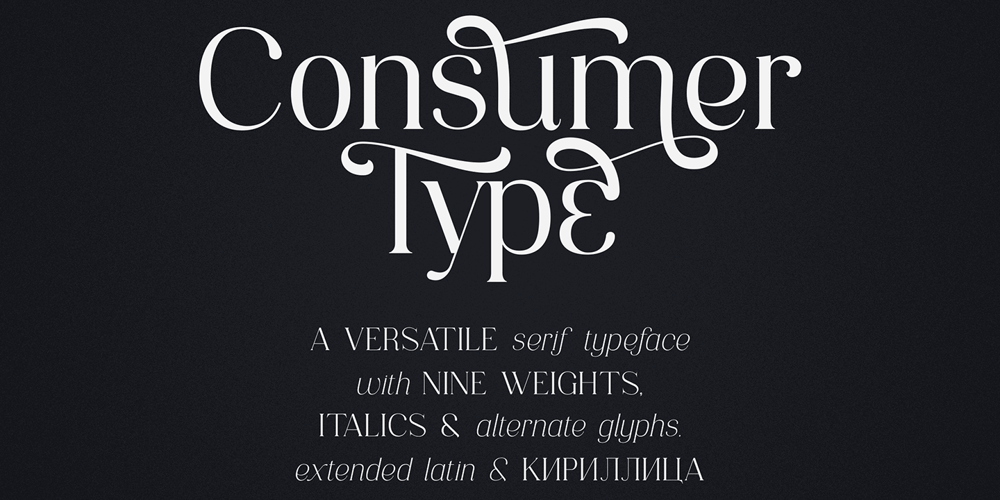
Consumer Type Font Family was designed by Vladimir Fedotov, Plamen Petrov and published by VP Creative Shop. Consumer Type contains 18 styles and family package options. Discover Consumer Type, an elegant serif typeface family that embodies timeless sophistication. Packed with 9 weights and true italics for every style, this versatile font offers a total of 1561 meticulously crafted glyphs, including alternate characters, extended Latin, Cyrillic, and Bulgarian Cyrillic scripts. Perfect for branding, editorial design, and high-end projects, Consumer Type delivers impeccable style and international support. Elevate your designs with its graceful curves, refined details, and unparalleled versatility.